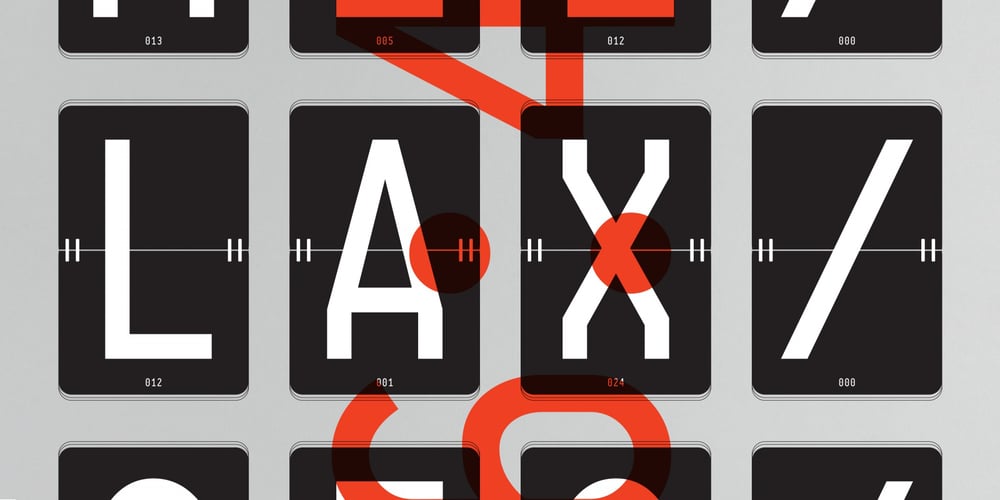
Pragmata Font Family was designed by Fabrizio Schiavi and published by FSD. Pragmata contains 2 styles and family package options. 2001 description: No monospaced typeface I used for coding development or just plain e-mail correspondance satisfied me in aliased mode. All common monospaced fonts have hinting imperfections from 9 to 12 points and above. All but Pragmata.2021 description: Pragmata is still a good font for graphic design. Take a look at Pragmata Pro if you looking for a perfect and complete antialiasing coding font